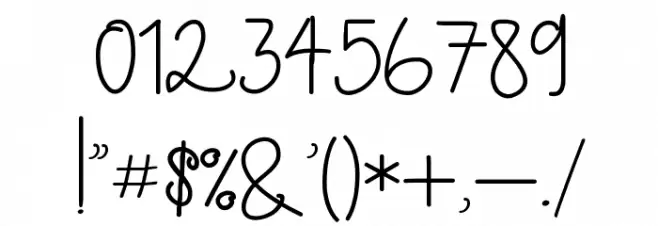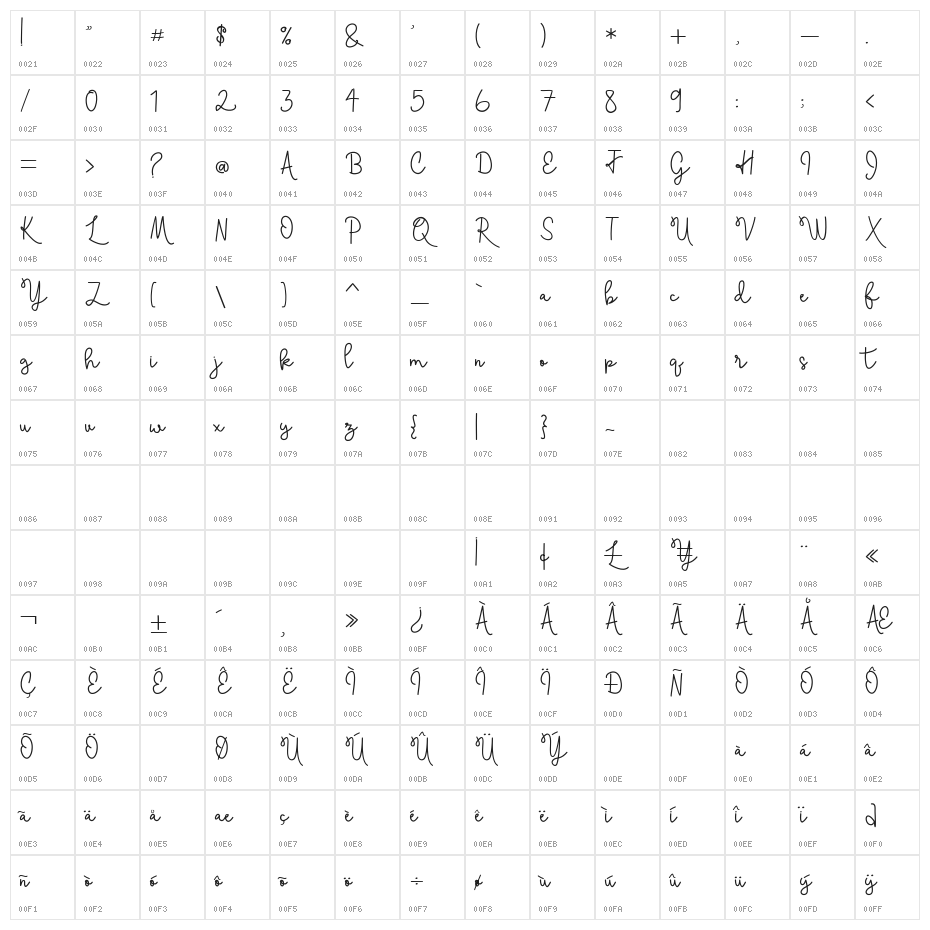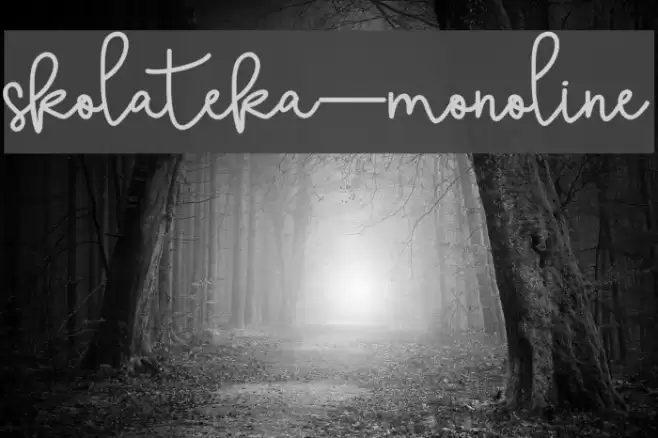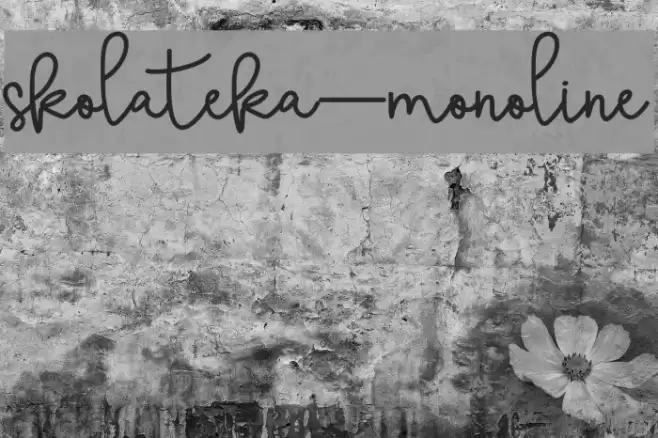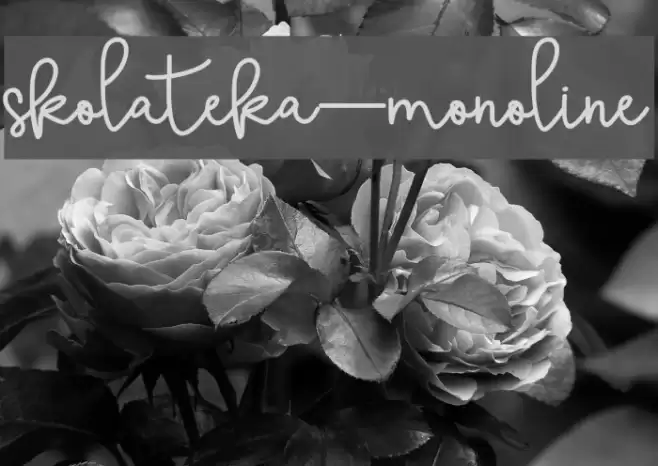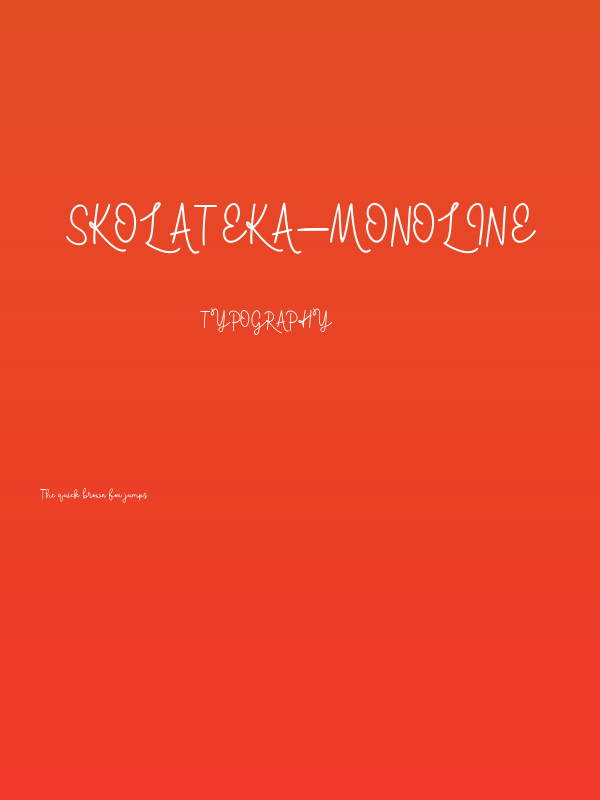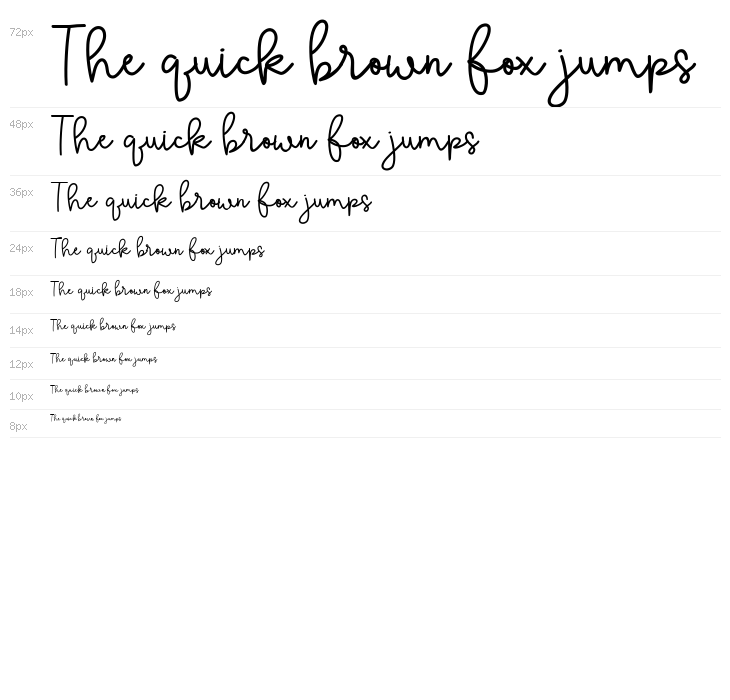
skolateka-monoline Font
skolateka-monoline Description
This font features a playful and whimsical monoline script style, characterized by its smooth, continuous strokes and elegant curves. The uppercase letters are tall and slightly narrow, with distinctive loops and swirls that add a touch of flair. The lowercase letters maintain a consistent flow, enhancing readability while retaining a casual, handwritten feel. Numbers and special characters are crafted with the same attention to detail, ensuring a cohesive look across all elements. The font's overall design is both modern and approachable, making it suitable for a variety of creative applications.
| Proposed Projects | Ideal for wedding invitations, greeting cards, logos, and branding materials that require a personal touch. |